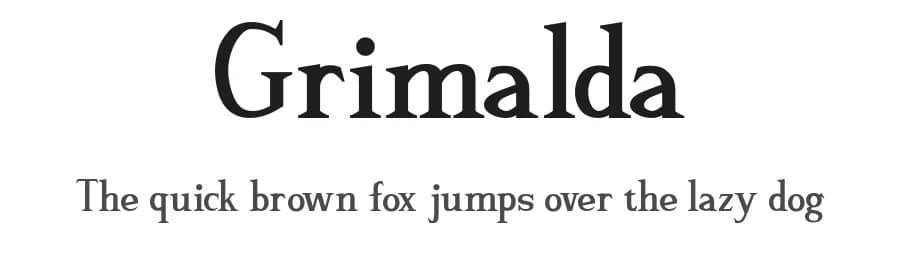
About Grimalda Font
Grimalda Font is a versatile serif font that works for both headings and body text. Pair it with a contrasting sans-serif or slab serif font to add visual interest and a clear distinction between titles and body copy.
Grimalda Font